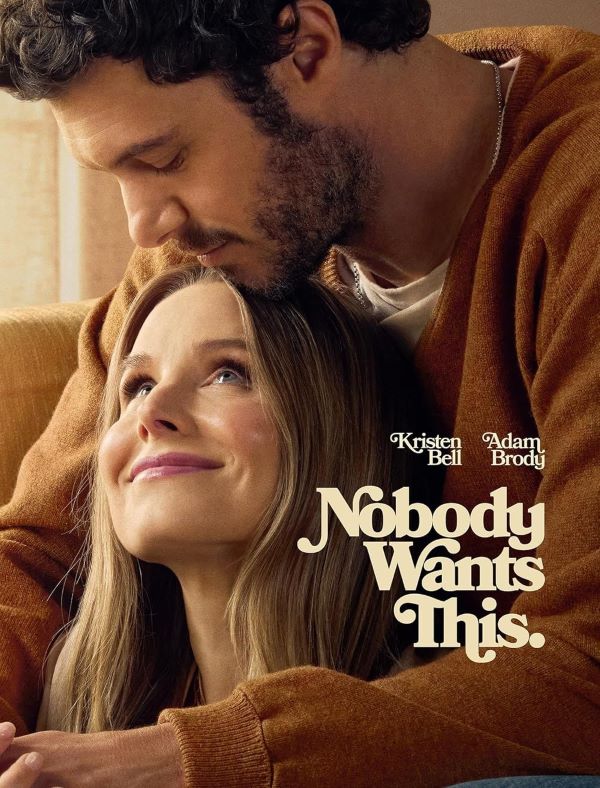
Nobody Wants This Font
What Font is Nobody Wants This?
The Nobody Wants This Font used in the film title is Bookmania, a classic serif typeface designed by Mark Simonson. Known for its refined curves and literary charm, Bookmania adds a sense of sophistication and emotional depth to the movie’s visual identity. Its balanced letterforms and traditional structure create a timeless aesthetic that perfectly complements the tone of the story — heartfelt, human, and quietly powerful.